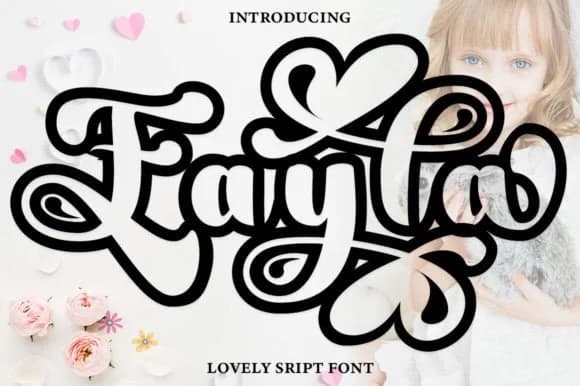
About Kayla Outline Font
Kayla Outline Font by Ws Studio is a contemporary calligraphic script with bold, outlined letterforms that blend authentic hand-drawn character with modern refinement. The typeface features flowing strokes and deliberately crafted glyphs that maintain legibility across both digital and printed applications, making it a genuinely versatile addition to any designer's toolkit. This script shines for wedding invitation suites, luxury brand identities, and editorial headlines where sophistication and visual presence are essential. Its distinctive outlined construction makes it particularly well-suited for boutique product branding, custom greeting cards, and event program covers that demand memorable typography. The included ligatures expand creative possibilities for logo design and display applications, offering designers multiple ways to customize letterforms and connections. Craft-focused professionals will find Kayla Outline Font remarkably adaptable for creating personalized stationery, decorative signage, and specialty packaging that stands apart from conventional mass-market options. Its clean, precise outlines ensure excellent results whether you're working with vector design software, managing print production, or exploring traditional crafting approaches. The outlined style also translates beautifully to laser cutting and engraving applications, providing even more versatility for makers and small business owners. Experience the versatility of this distinguished script, add Kayla Outline Font to your Creative Fabrica library.
- Elegant, Flowing, Modern Calligraphy
Kayla Outline Font is a script font that shines as a display or heading face. Pair it with a clean sans-serif or serif font for body text β the contrast creates a clear hierarchy while the two styles stay balanced and easy to read.
Kayla Outline Font
by Ws Studio